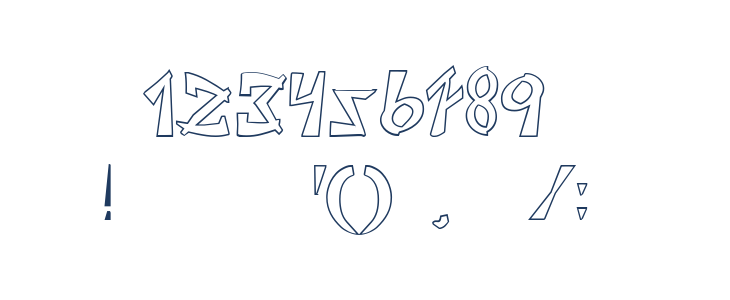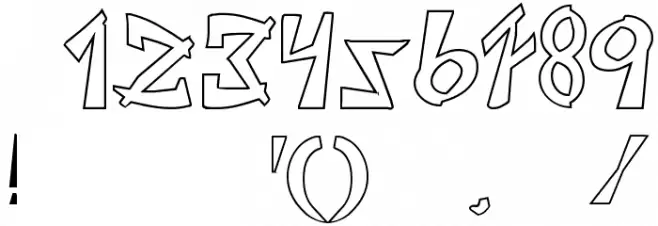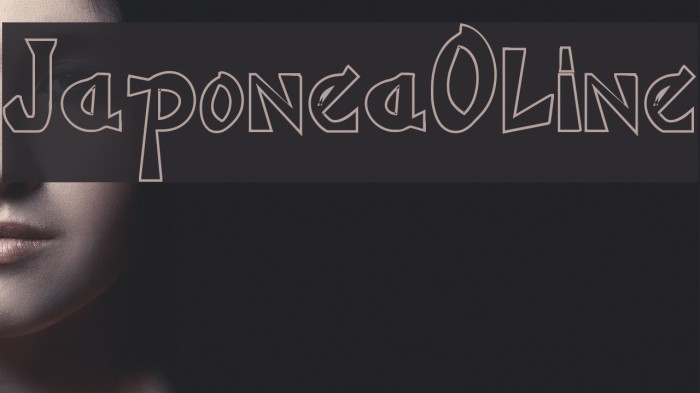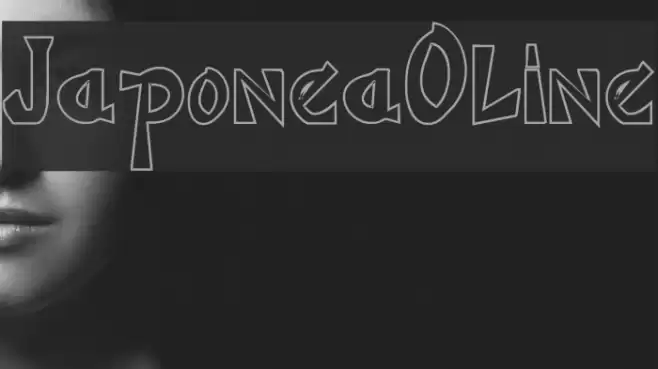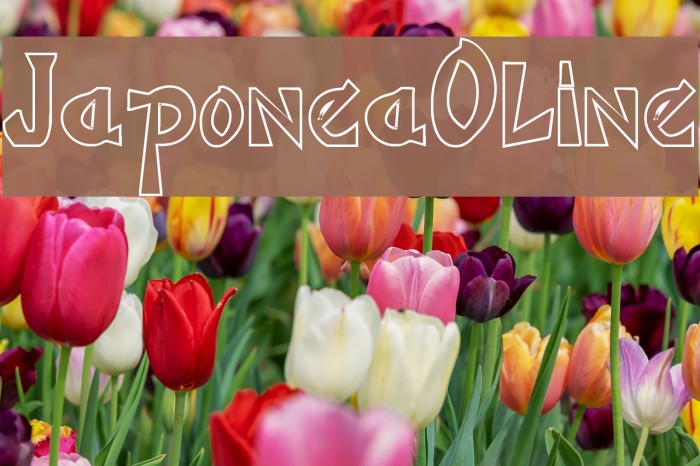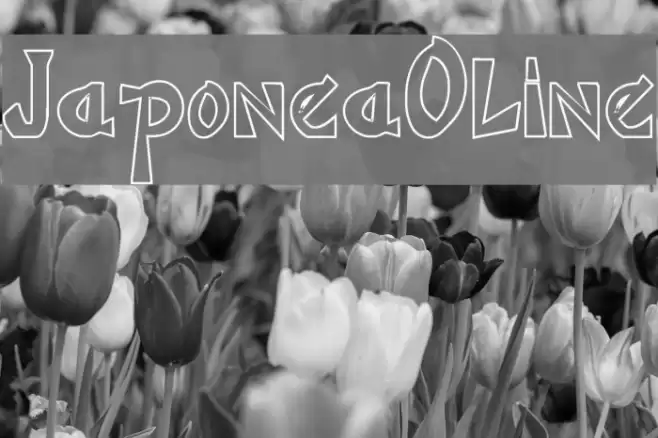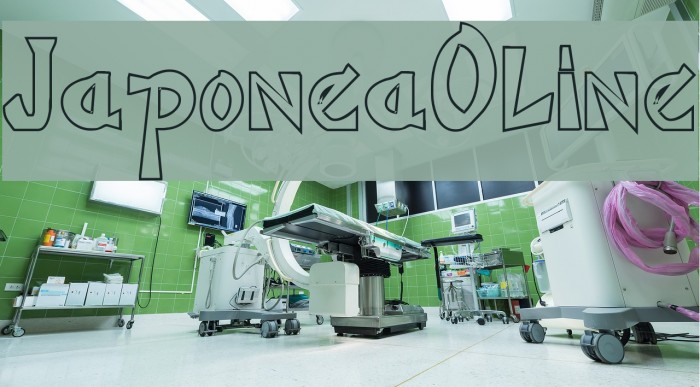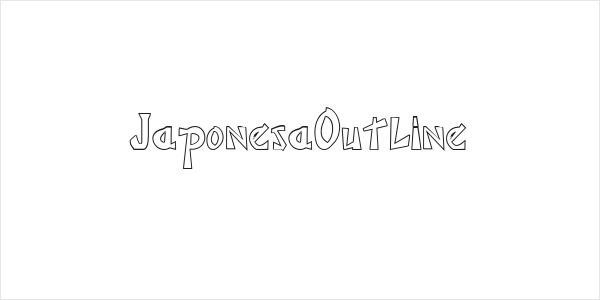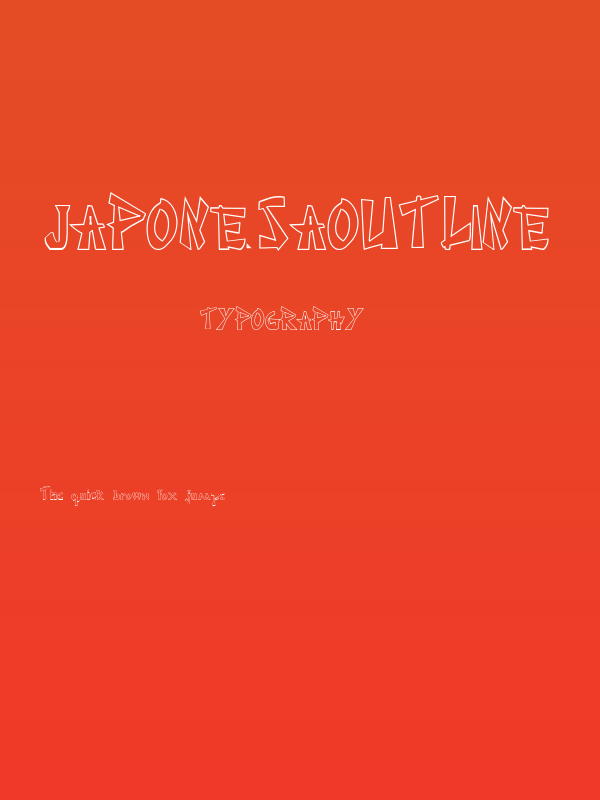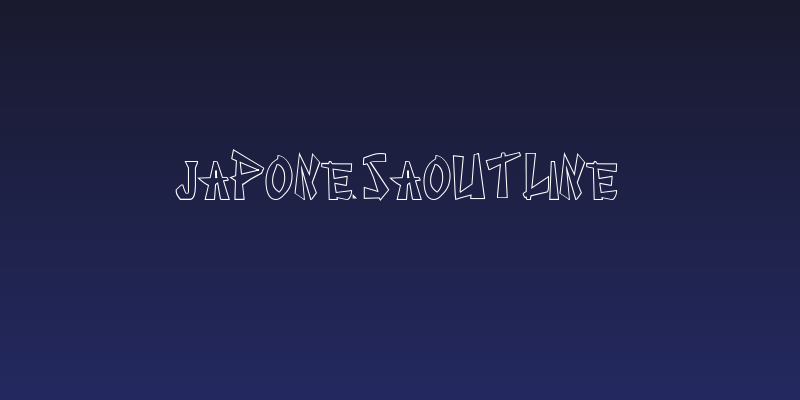
JaponesaOutline Font
JaponesaOutline Description
This font features a unique and bold outline style, characterized by its angular and geometric shapes. The uppercase letters are particularly striking, with sharp edges and a dynamic, almost three-dimensional appearance. The lowercase letters maintain the same angular aesthetic, providing a cohesive look across the alphabet. Numbers and special characters are designed with the same attention to detail, ensuring consistency throughout. This font's outline style gives it a modern and edgy feel, making it stand out in any design.
| Proposed Projects | Ideal for posters, album covers, and branding projects that require a bold and distinctive look. |